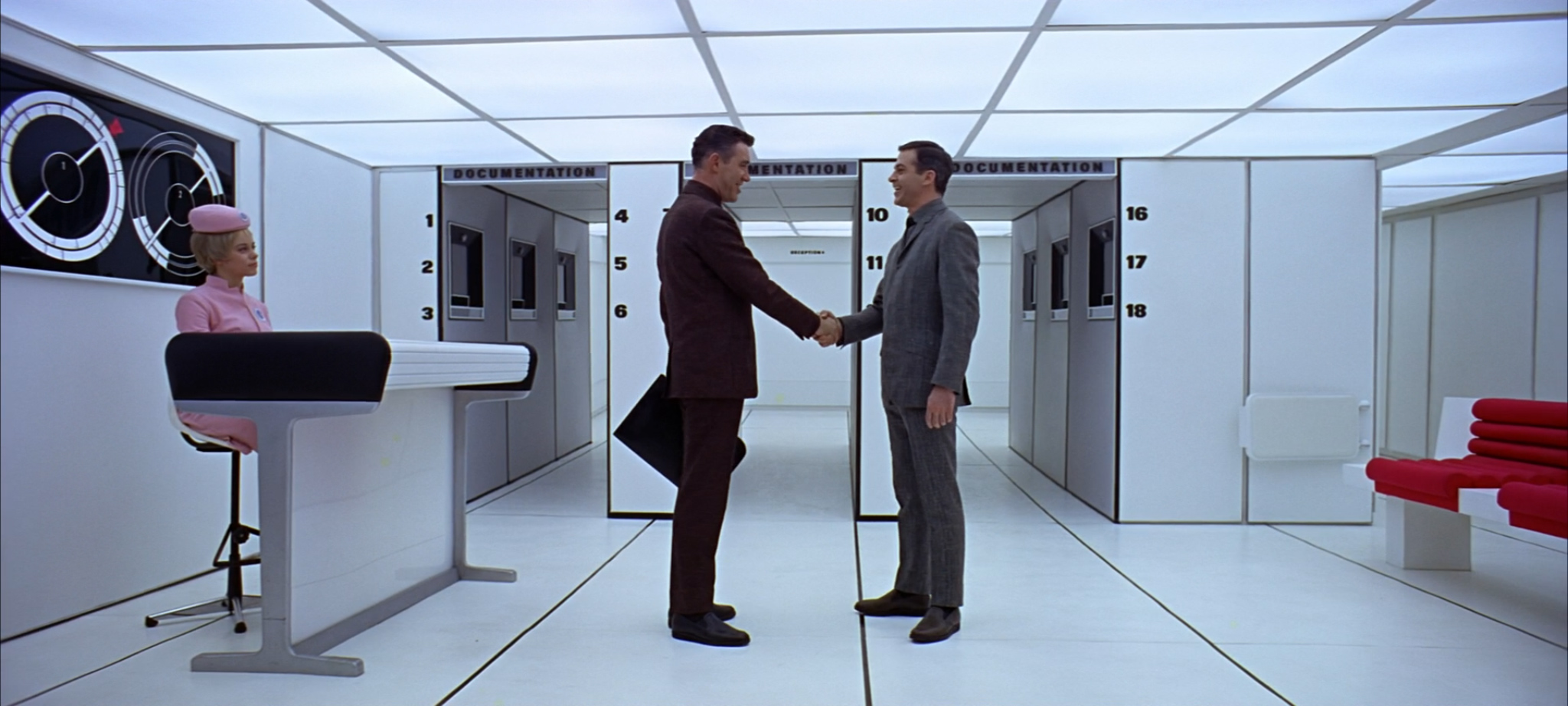
2001: A Space Odyssey – Stanley Kubrick’s 1968 sci-fi masterpiece – seems an appropriate place to start a blog about typography in sci-fi. Amongst other delights, it offers a zero-gravity toilet, emergency resuscitations, exploding bolts, and product placement aplenty. It’s also the Ur Example of Eurostile Bold Extended’s regular appearance in spacecraft user interfaces. Right from the opening scene, we’re treated … Continue reading 2001: A Space Odyssey